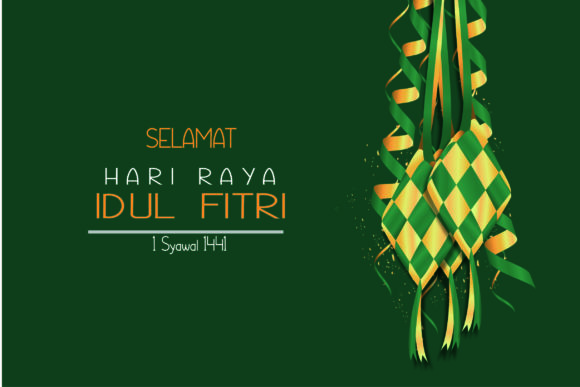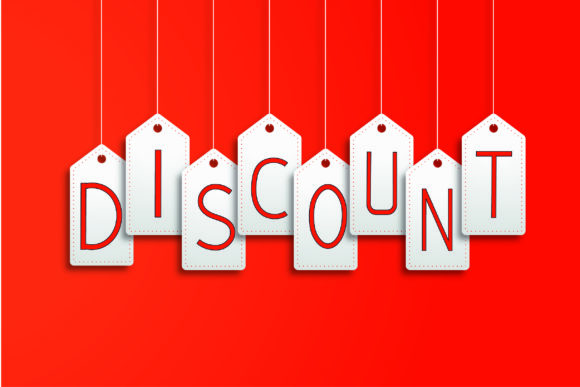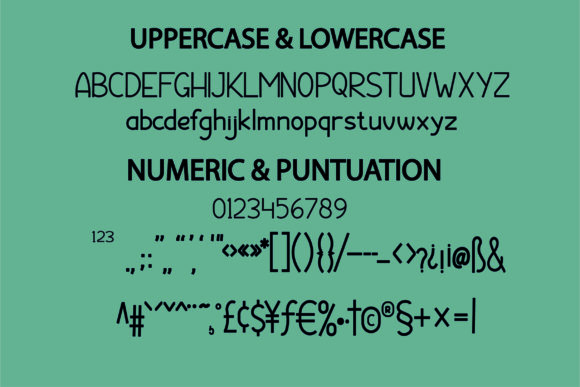
Introduction to Seganggeng Font Font
Fonts play a crucial role in design, and the Seganggeng Font font is a typeface that brings both character and versatility to any project. Whether you’re working on a branding project, a website, or a print design, the Seganggeng Font font offers a unique style that can elevate your work.
Seganggeng is a simple, neat and cool display font.
Key Features of Seganggeng Font Font
Why Choose Seganggeng Font Font?
The Seganggeng Font font is more than just a typeface – it’s a design tool that helps you communicate your message with style and clarity. Its unique character set and versatile design make it suitable for a wide range of applications, from elegant invitations to bold headlines.
With its carefully crafted letterforms and balanced proportions, the Seganggeng Font font ensures readability and visual appeal across all mediums.
What makes Seganggeng Font font special?
The Seganggeng Font font stands out with its unique design, exceptional readability, and versatility across various design applications.